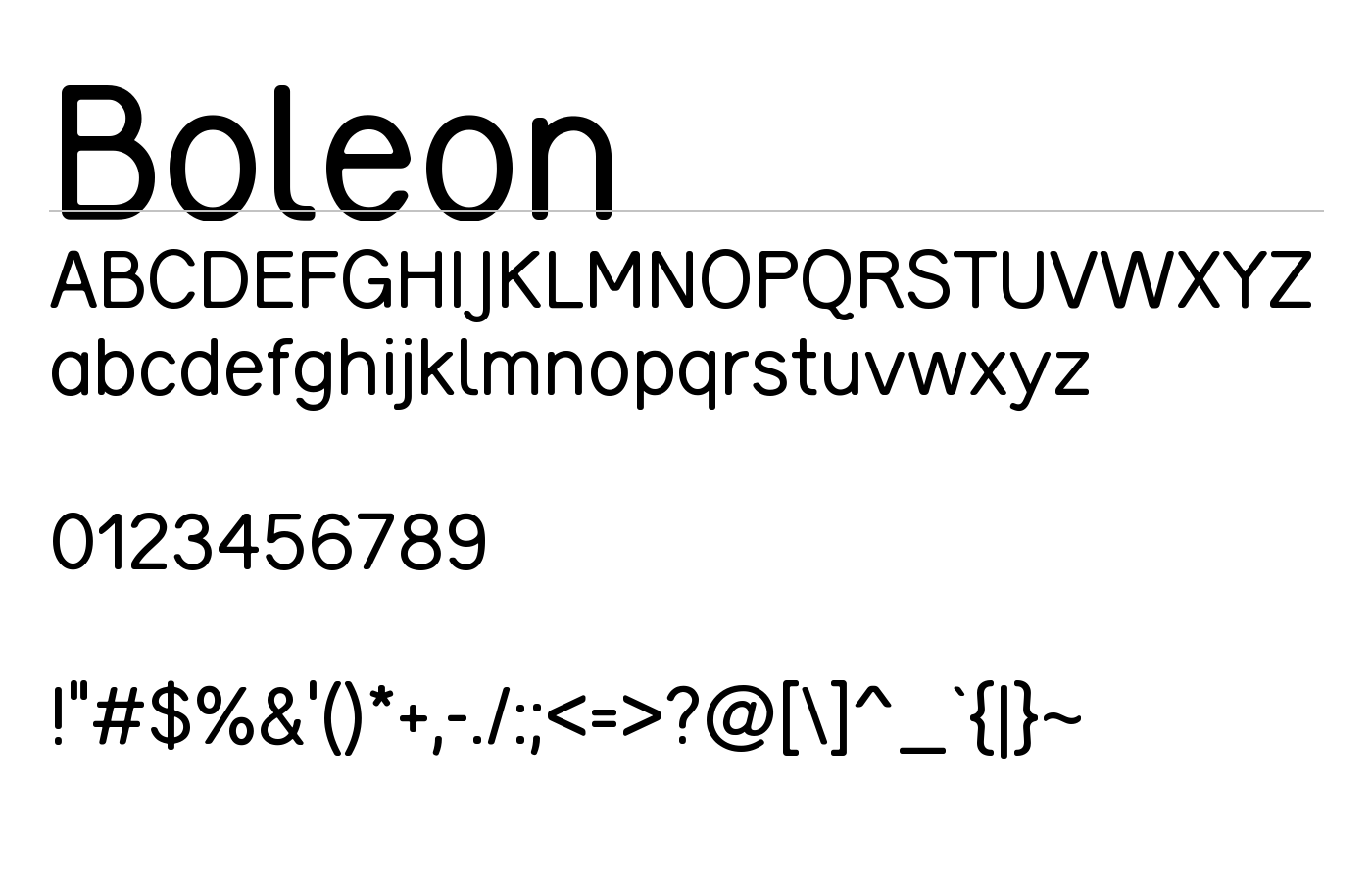
Boleon is a clean and modern sans-serif font with a friendly, rounded appearance that offers excellent readability. Its regular weight, open letterforms, and consistent stroke width make it versatile for use in digital interfaces, branding, and body text where clarity and approachability are key. This font works well for tech companies, educational content, and casual designs seeking a straightforward yet welcoming style.
Boleon Font
About Boleon Font
| Font family | Boleon Font |
| Designer | Nico Rützel |